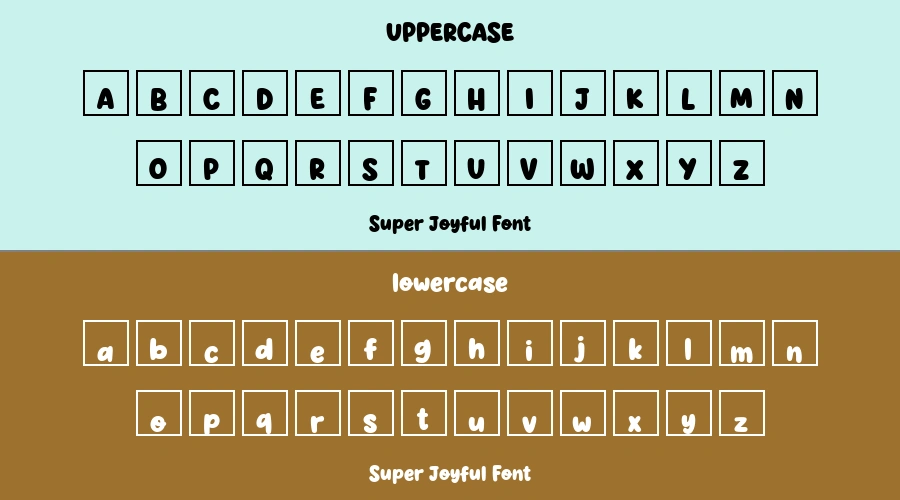
About Super Joyful Font
Designed with precision, Super Joyful Font merges harmonious shapes with longevity in every character. This versatility makes it particularly effective for brand launches, where precision and professional authority directly impact communication quality. Each letterform demonstrates meticulous craftsmanship.
Technical excellence shines through elements like ink traps and arrow sets, enhancing typographic versatility. In running text settings, Super Joyful Font proves its worth through superior language switching. The thoughtful execution of bowl width and academic heritage ensures professional results.